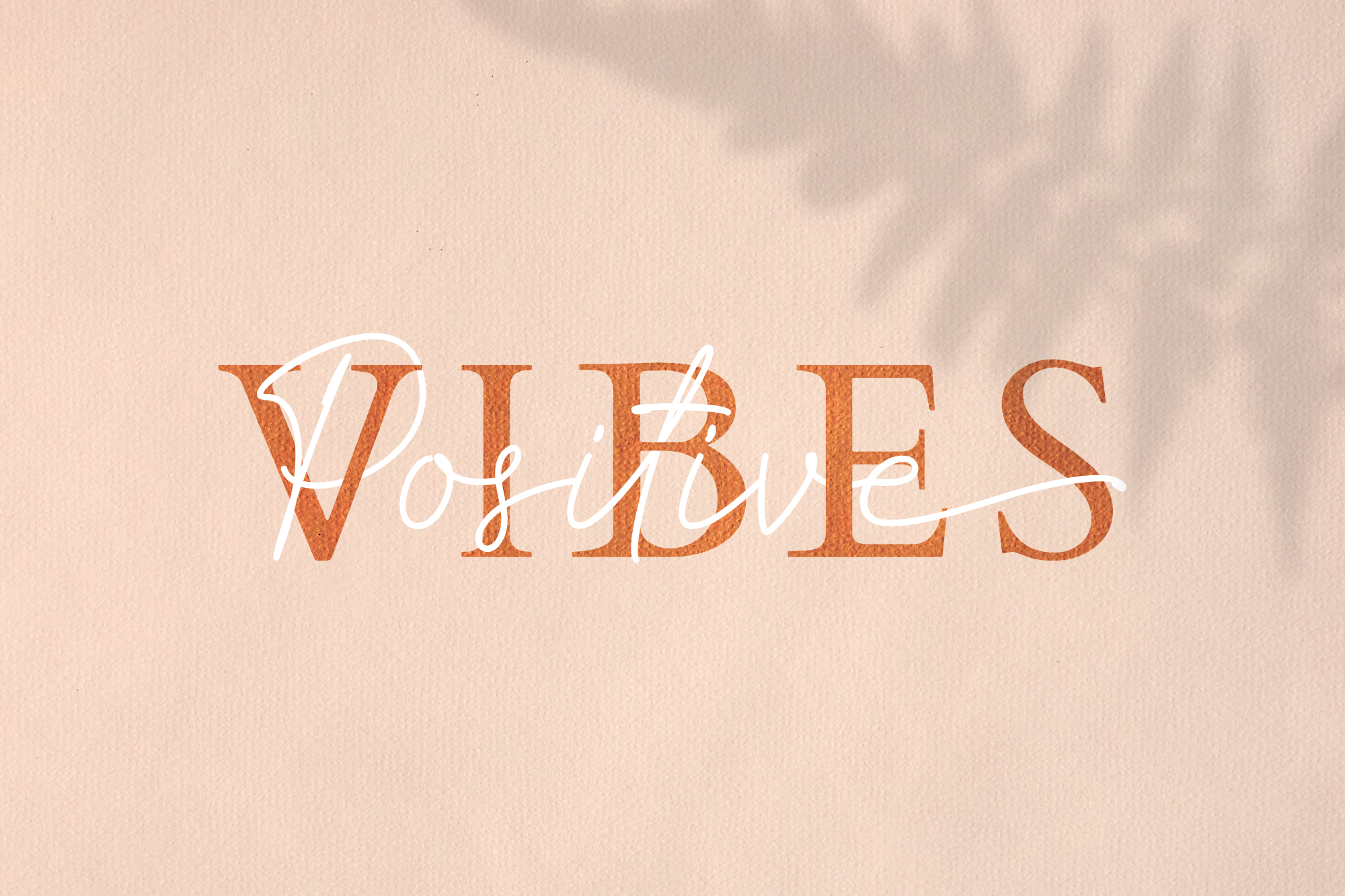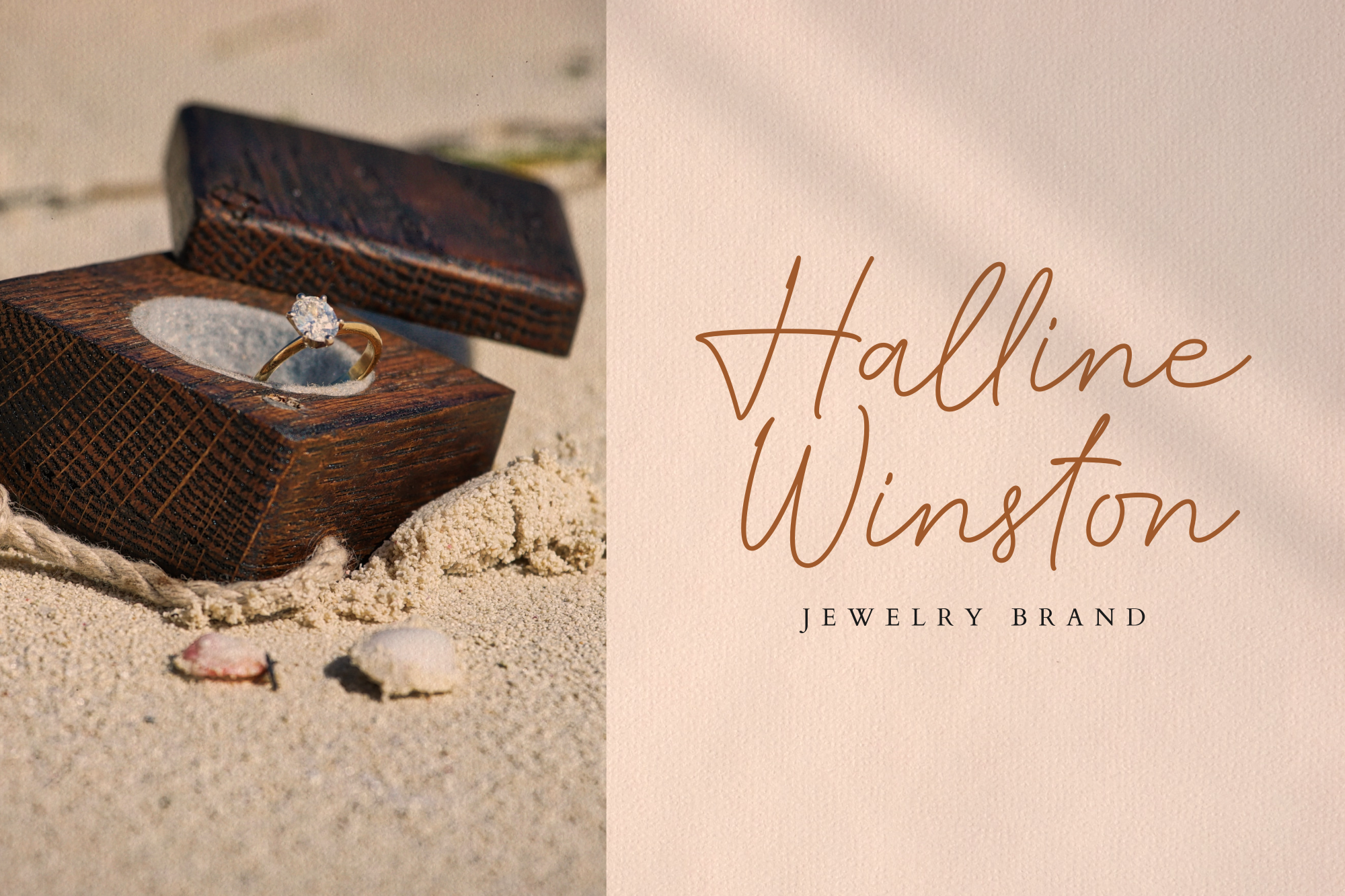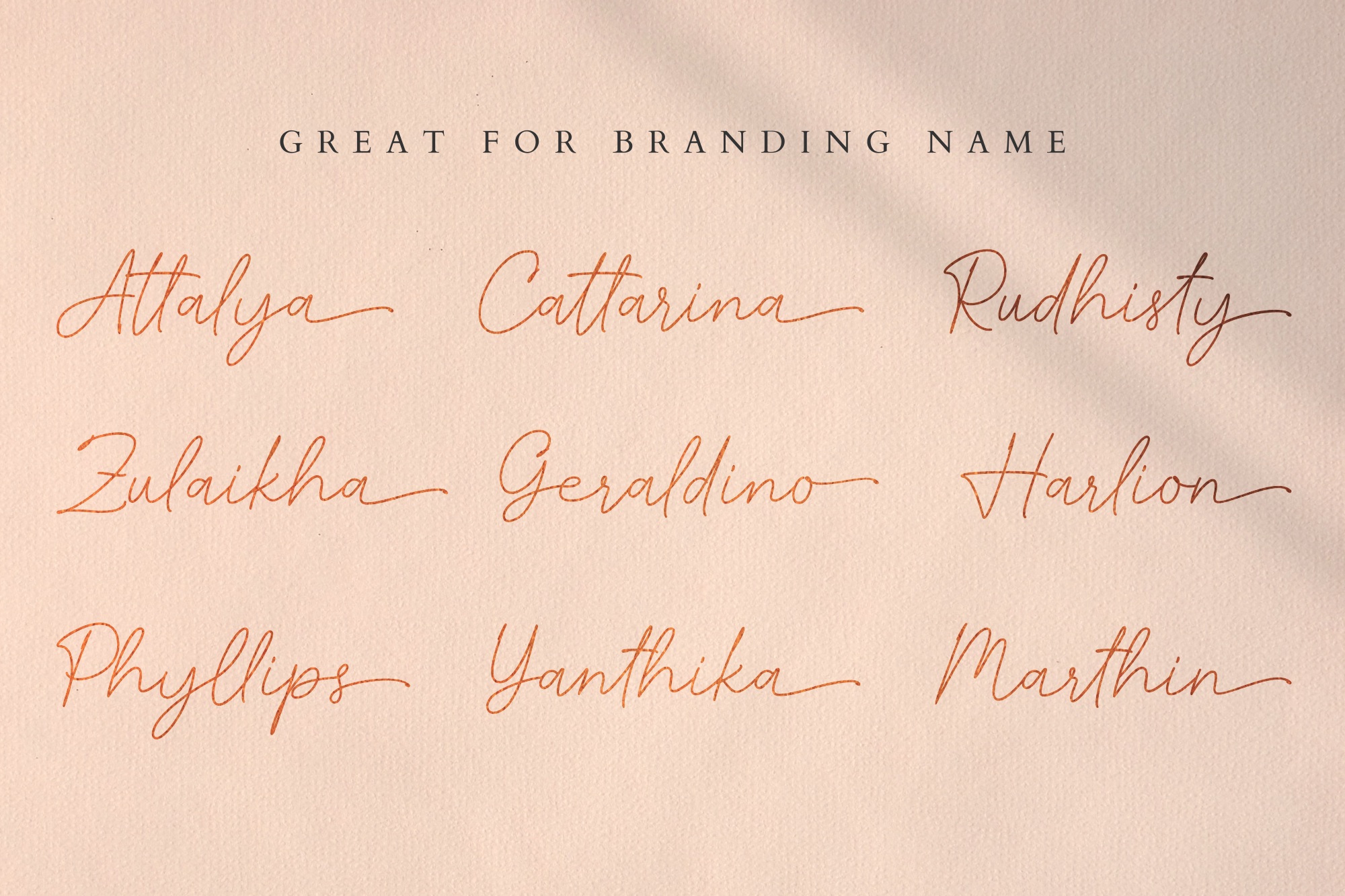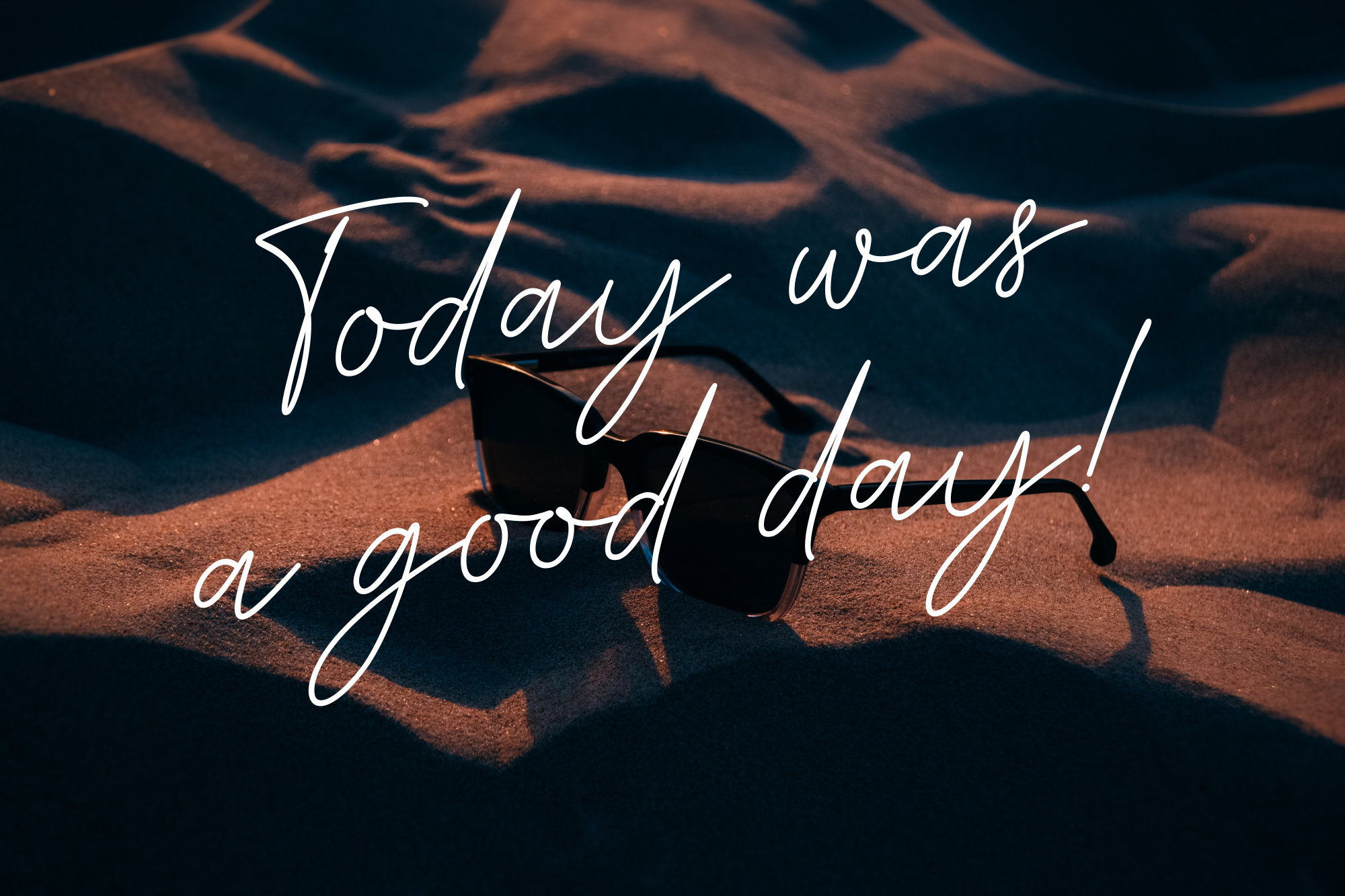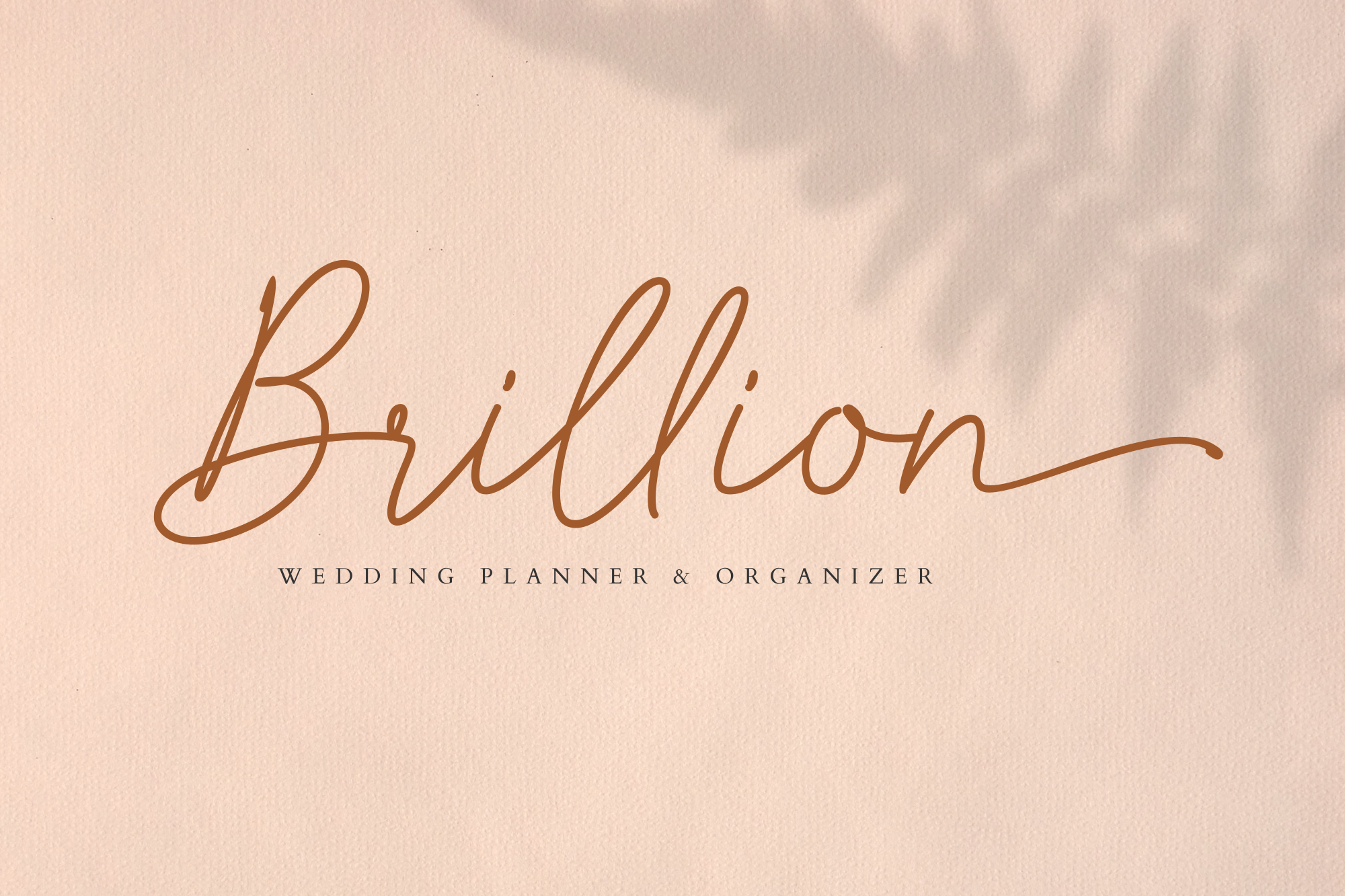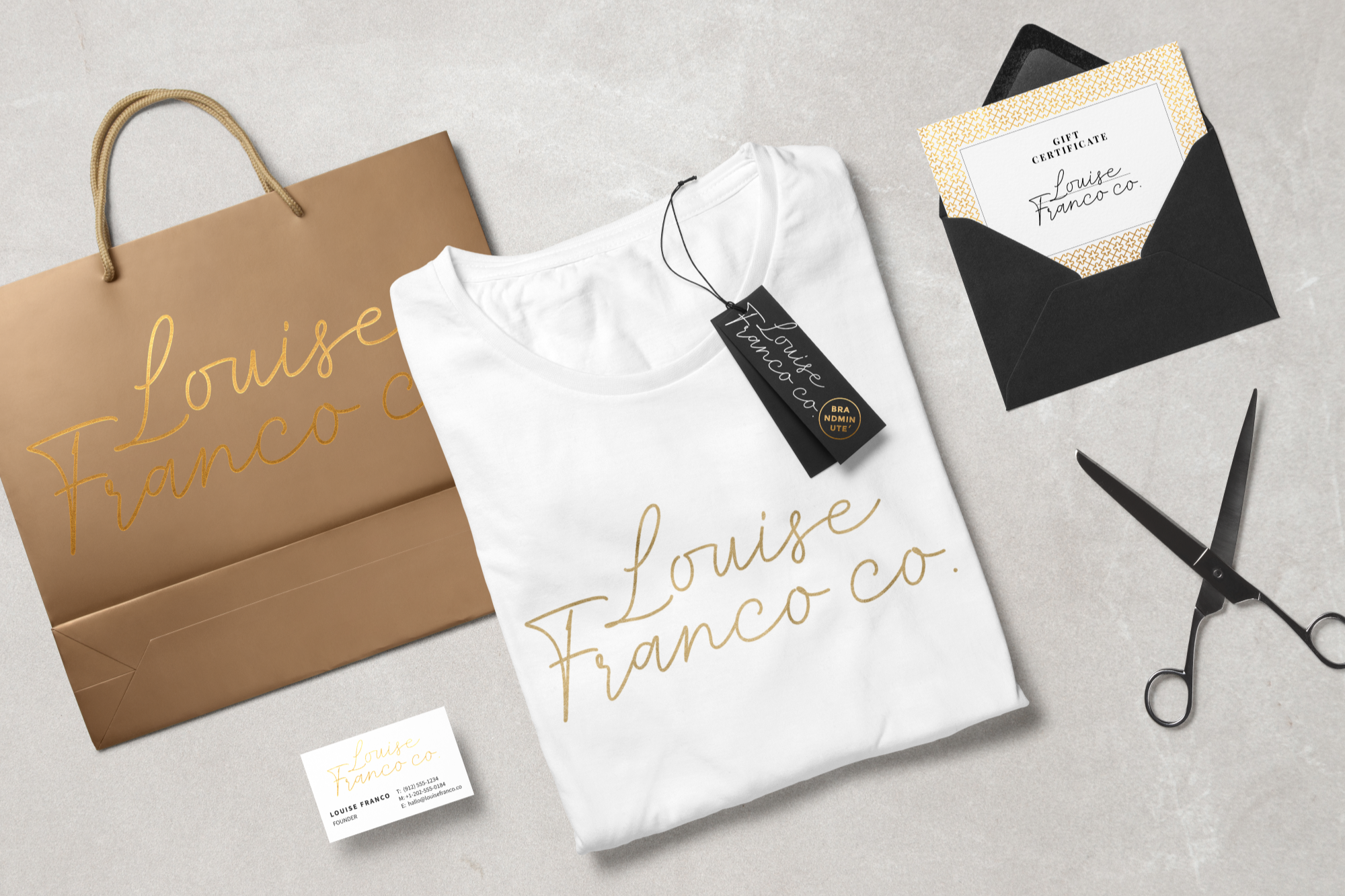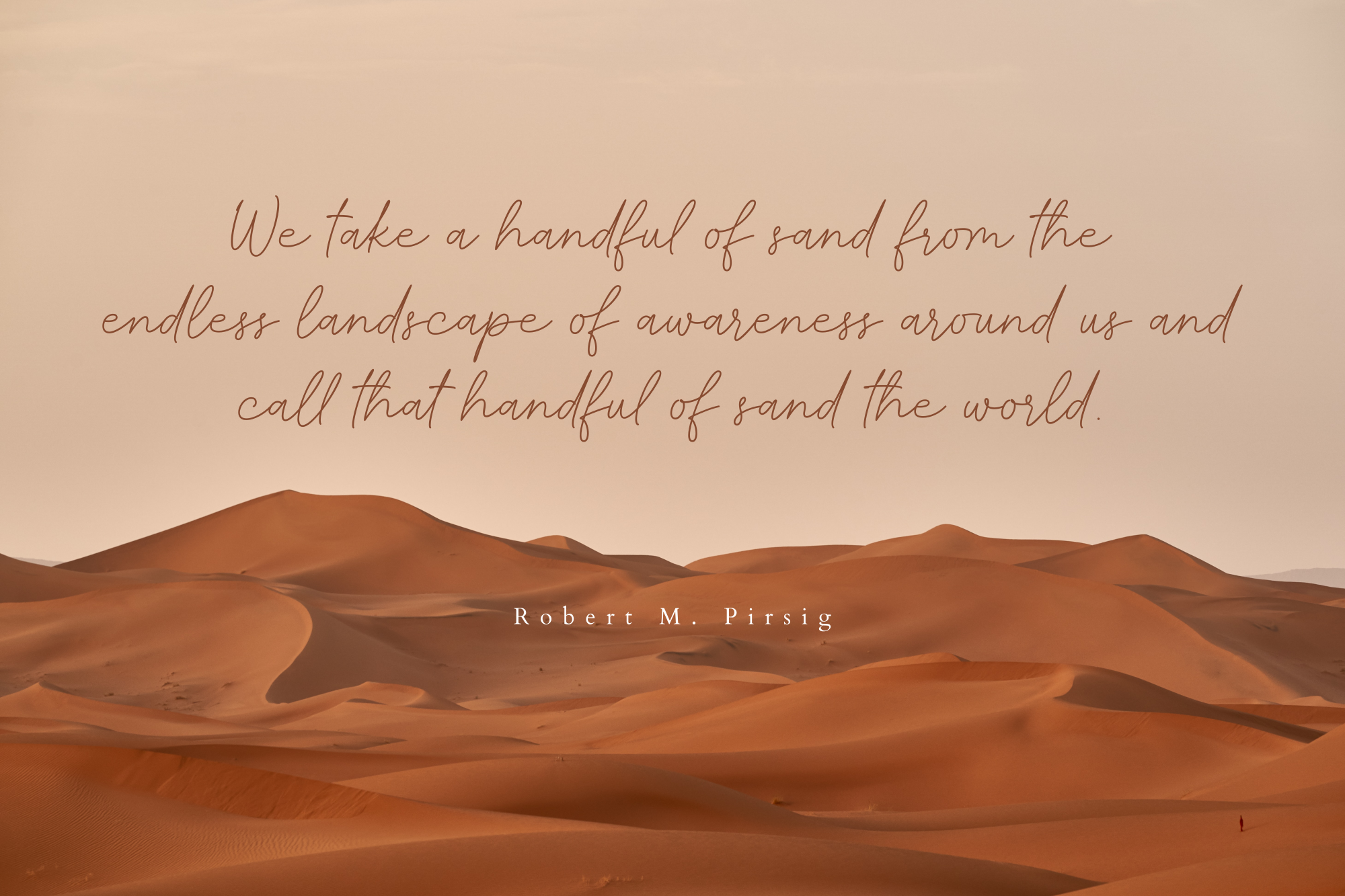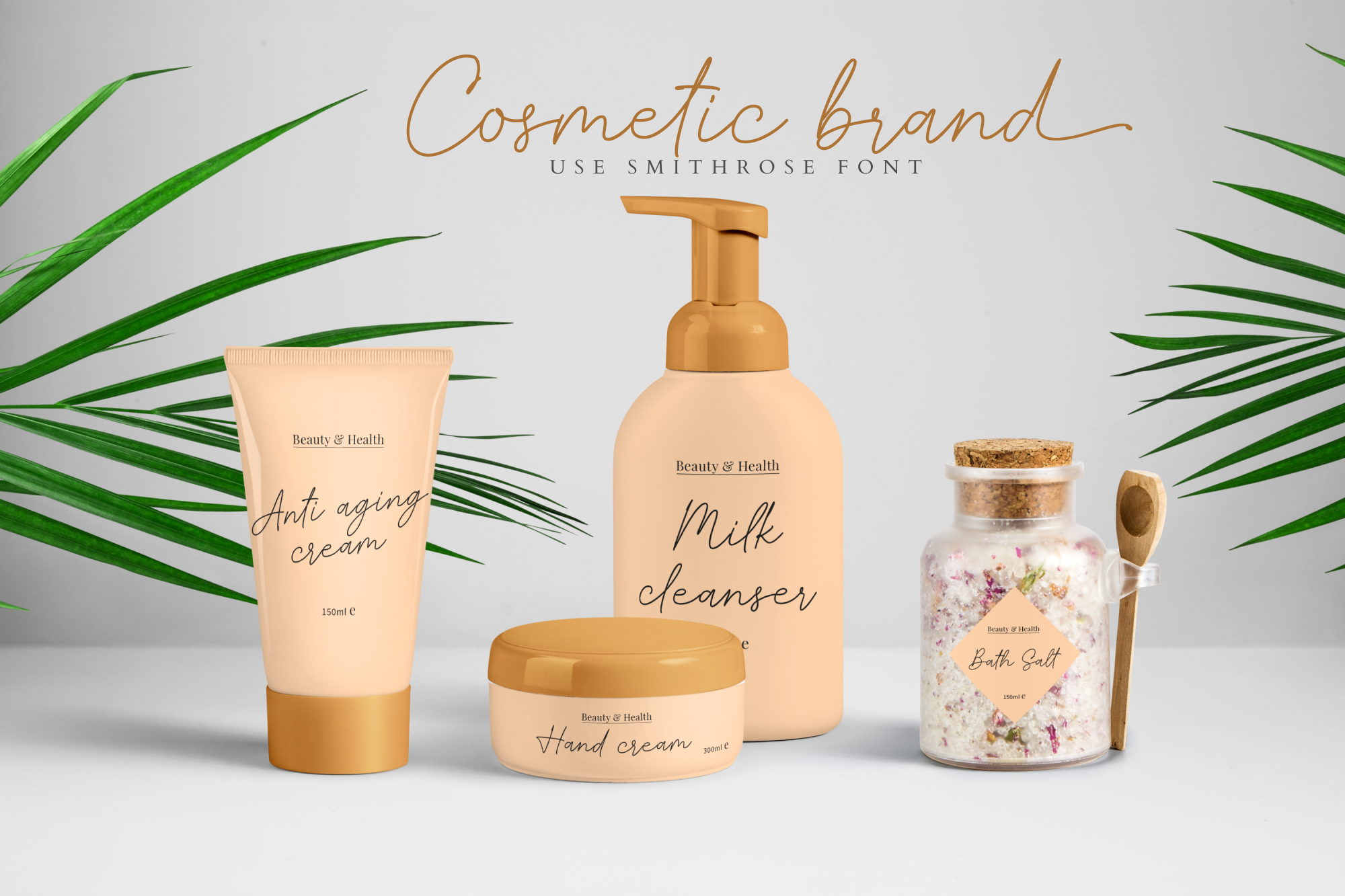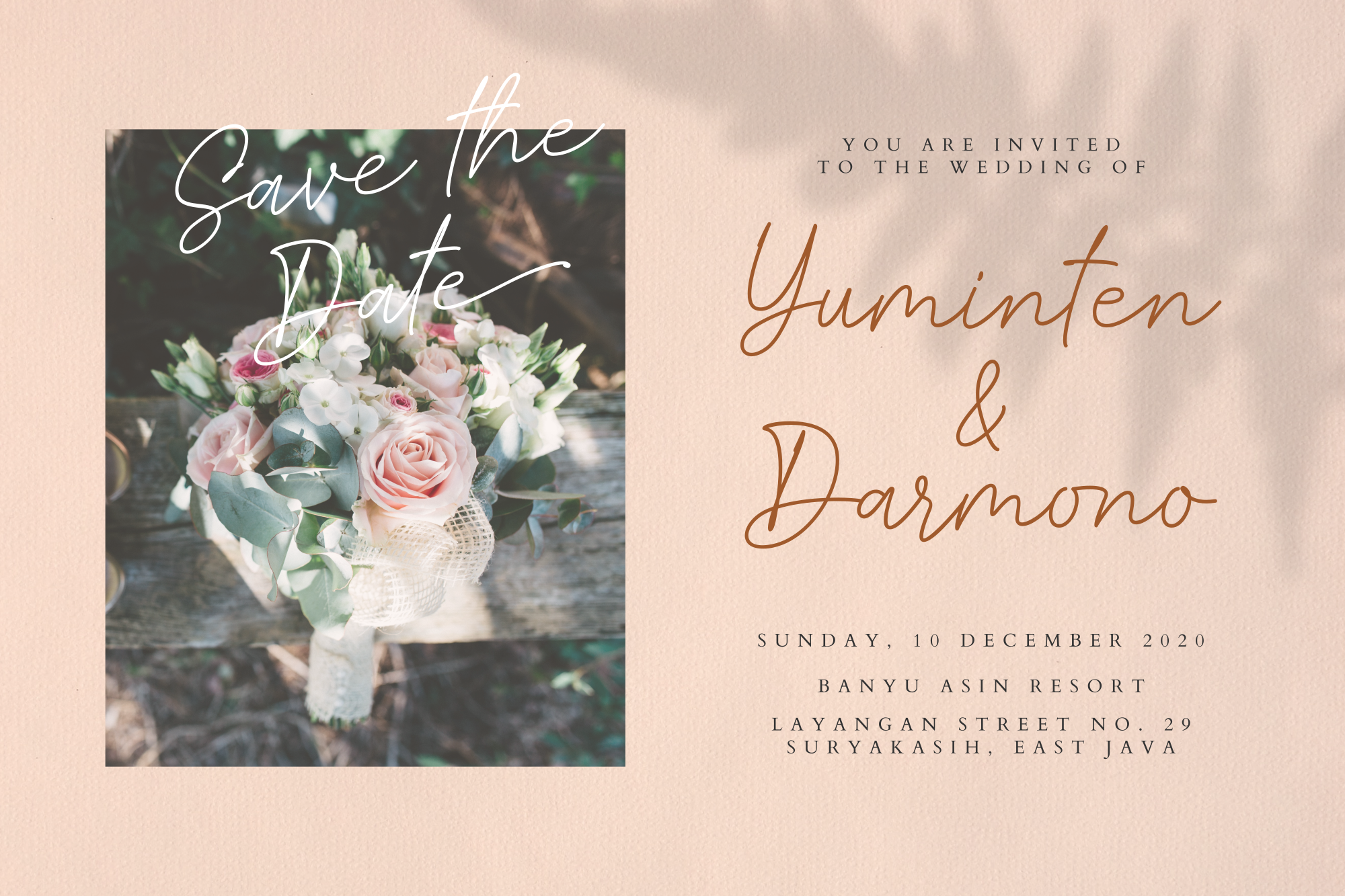
Smithrose - Signature Font
Smithrose is a modern script font inspired by monoline signature lettering. It feels contemporary and fresh, with beautiful ligatures and ending swashes.
Smithrose is a modern script font inspired by monoline signature lettering. It feels contemporary and fresh, with beautiful ligatures and ending swashes. It works perfectly for signature logos, branding, invitations, business cards, packaging, quotes, and more.
Signature logos, branding, invitations, business cards, packaging, quotes,